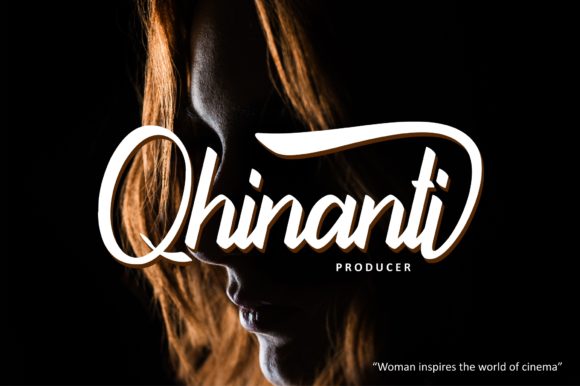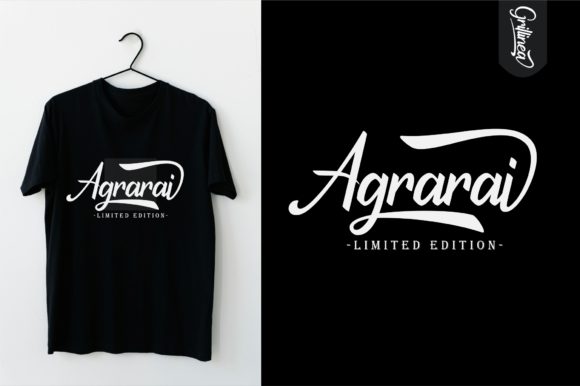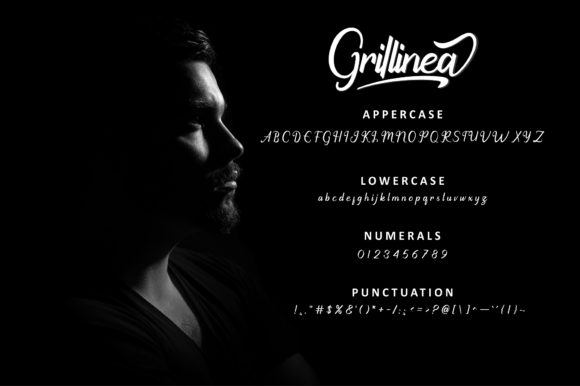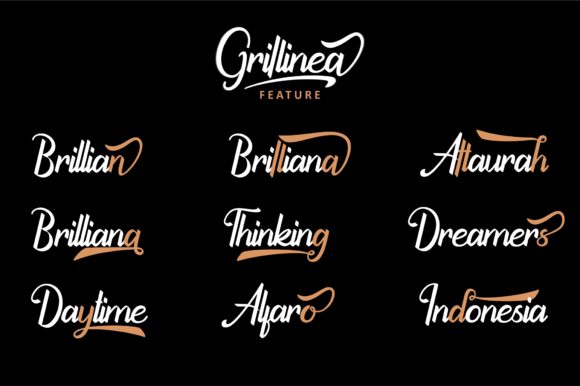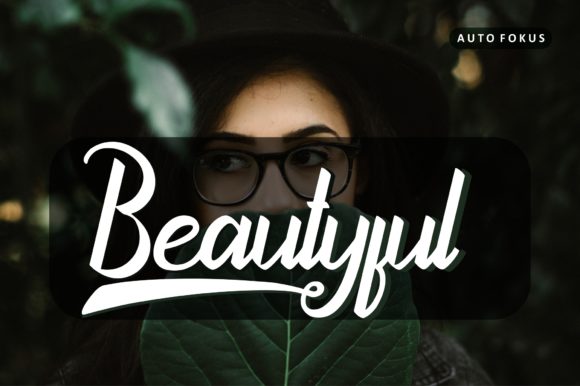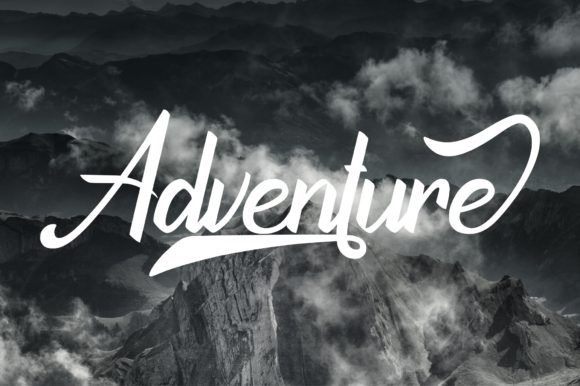
Introducing Grillinea Font: A Striking and Cool Handwritten Font with a Powerful Feel
Are you tired of using the same old fonts in your designs? Do you want to add a touch of personality and authenticity to your projects? Look no further than Grillinea Font, a striking and cool handwritten font that is sure to inspire. With its powerful feel and charming aesthetic, Grillinea is the perfect choice for designers and crafters looking to make a statement.
The Story Behind Grillinea Font
Grillinea Font is a carefully crafted handwritten font that is designed to evoke a sense of authenticity and charm. Its unique and distinctive style is inspired by the imperfections and quirks of handwriting, giving it a warm and personal feel that is hard to find in digital fonts. Whether you’re working on a branding project, a craft project, or simply want to add some personality to your digital designs, Grillinea Font is the perfect choice.
Key Features of Grillinea Font
- Handwritten style: Grillinea Font is a genuine handwritten font, carefully crafted to capture the imperfections and quirks of real handwriting.
- Powerful feel: Despite its handwritten style, Grillinea Font has a powerful and confident feel that is sure to make a statement in any design.
- Authentic charm: With its unique and distinctive style, Grillinea Font has an authentic charm that is hard to find in digital fonts.
- Versatile: Grillinea Font is perfect for a wide range of projects, from branding and advertising to crafting and DIY projects.
Uses for Grillinea Font
Grillinea Font is a versatile font that can be used in a wide range of projects, including:
- Branding and advertising: Use Grillinea Font to add a touch of personality and authenticity to your brand identity.
- Crafting and DIY projects: Add a personal touch to your craft projects, such as handmade cards, gift tags, and scrapbooking.
- Digital designs: Use Grillinea Font to add some personality to your digital designs, such as social media graphics, blog posts, and website headers.
- Stationery and paper crafts: Use Grillinea Font to create custom stationery, letterheads, and paper crafts.
Tips for Using Grillinea Font
Here are a few tips for getting the most out of Grillinea Font:
- Use it sparingly: While Grillinea Font is a beautiful font, it can be overwhelming if used too much. Use it sparingly to add a touch of personality to your designs.
- Pair it with other fonts: Grillinea Font pairs well with other fonts, such as sans-serif fonts and script fonts. Experiment with different pairings to find the perfect combination.
- Experiment with colors: Grillinea Font looks great in a variety of colors, from bold and bright to soft and pastel. Experiment with different colors to find the perfect look for your project.
Grillinea Font is a striking and cool handwritten font with a powerful feel that is sure to inspire. With its authentic charm and versatile style, it’s the perfect choice for designers and crafters looking to add a touch of personality to their projects. Whether you’re working on a branding project, a craft project, or simply want to add some personality to your digital designs, Grillinea Font is the perfect choice.